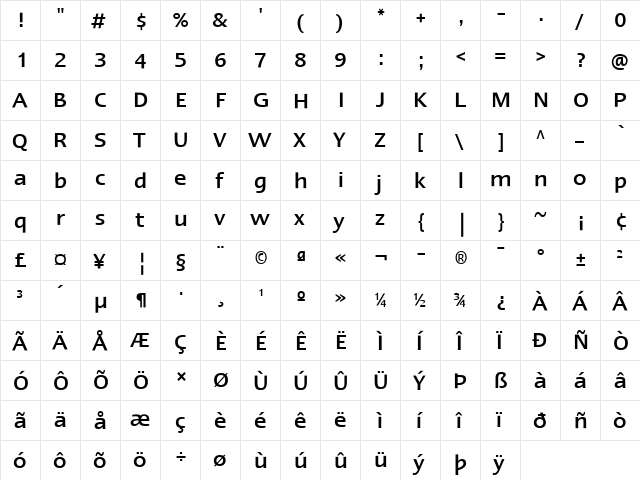
LTErgo Medium Regular Font Preview
LTErgo Medium Regular
LTErgo Medium Regular Font Details
Design Context for LTErgo Medium Typeface
LTErgo Medium offers clean, dependable letterforms without strong stylistic allegiance, making it a practical choice for designers who need flexibility.